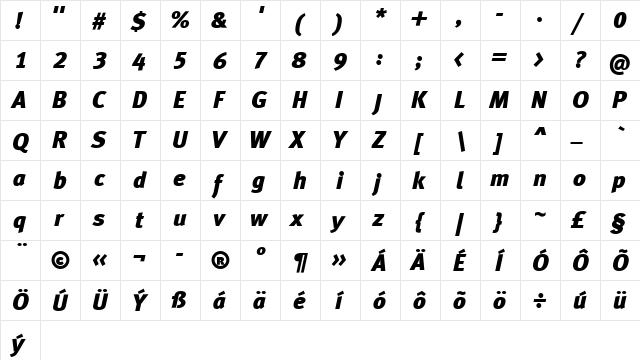
MetaBlackCELF Italic
Design Context for MetaBlackCELF Typeface
MetaBlackCELF is a composed and adaptable typeface that performs quietly and consistently across a wide range of design contexts. Its italic angle brings a sense of urgency and motion to the letterforms.
Pro Tip: Use MetaBlackCELF for emphasis, pull quotes, and subheadings where its slanted energy can add rhythm to the layout.